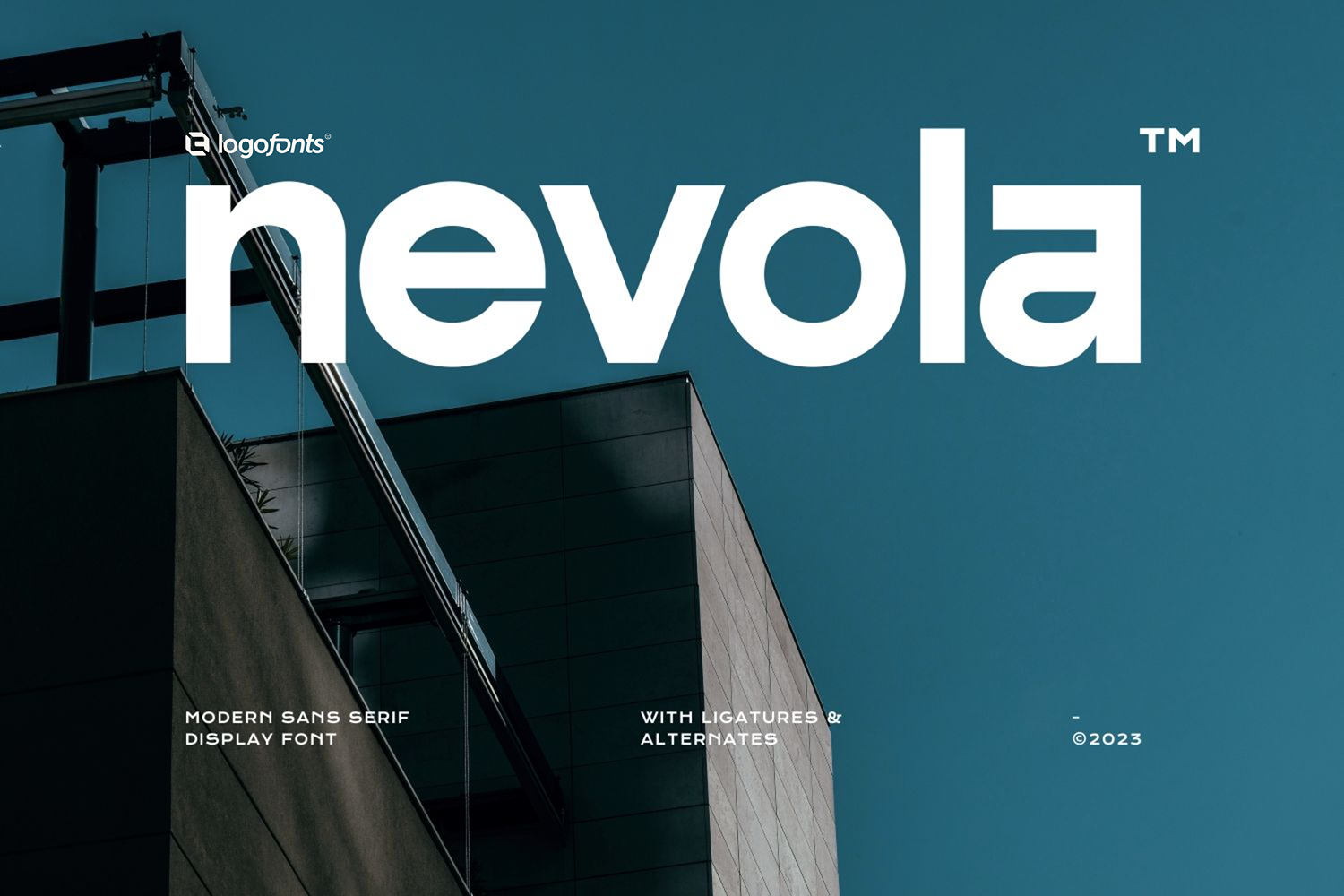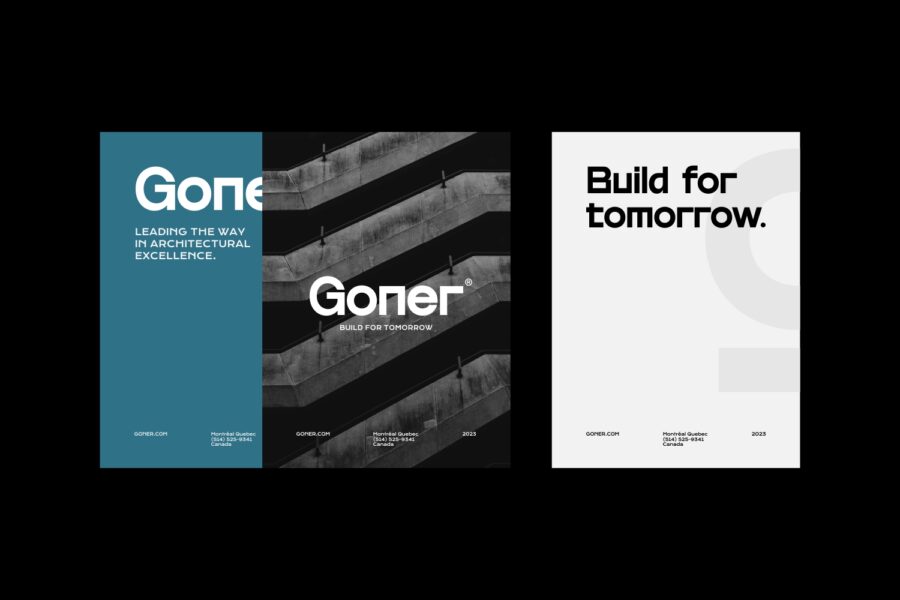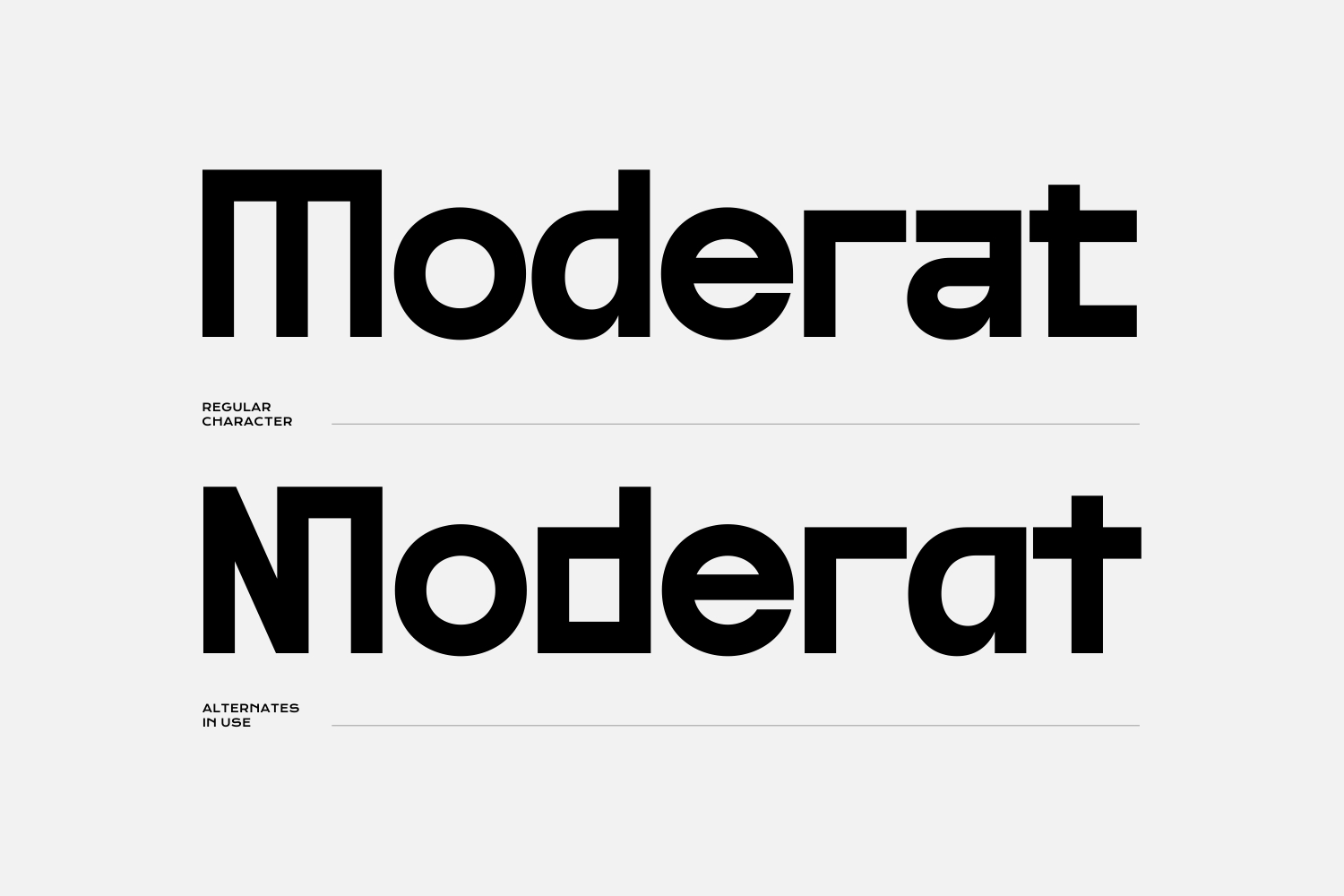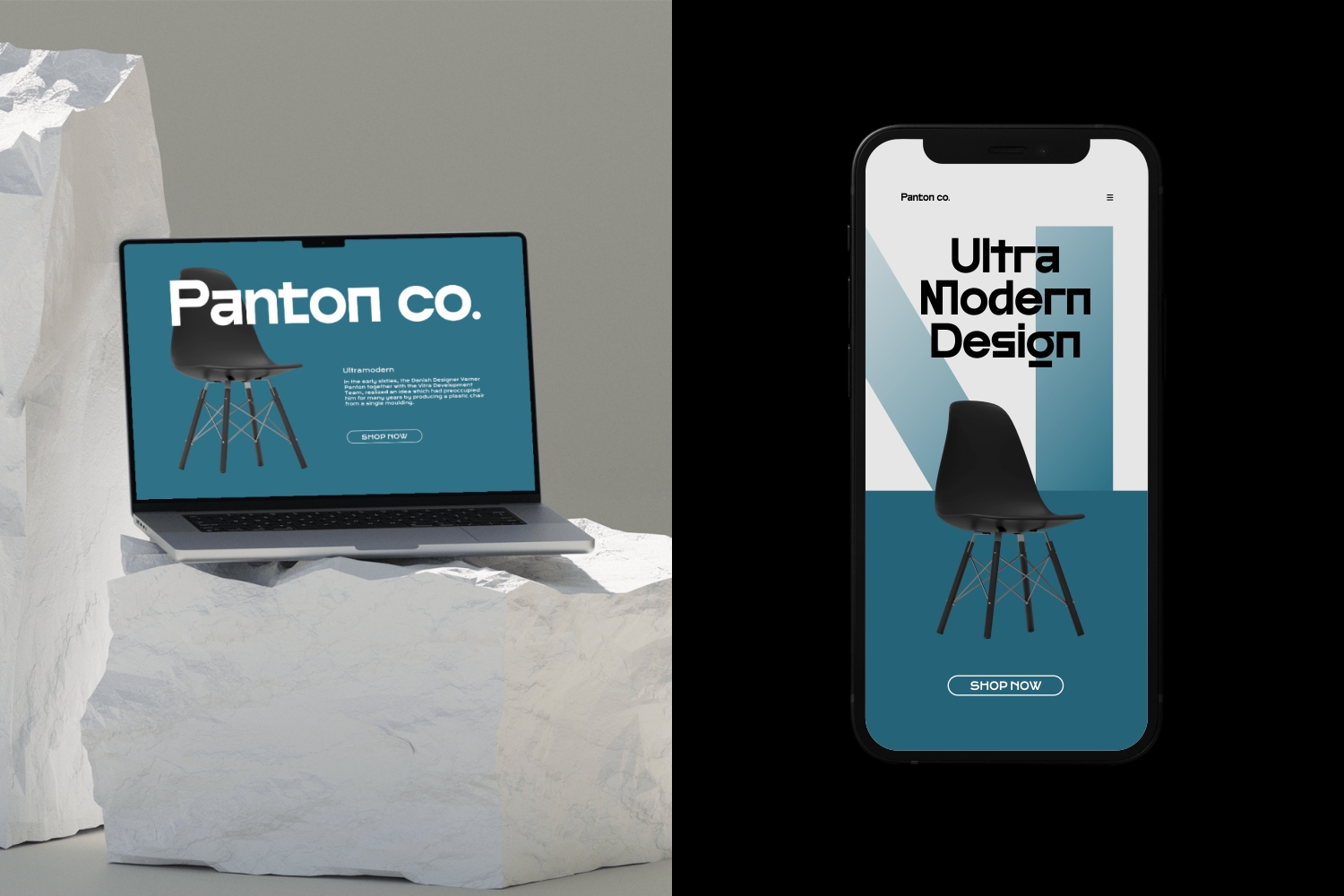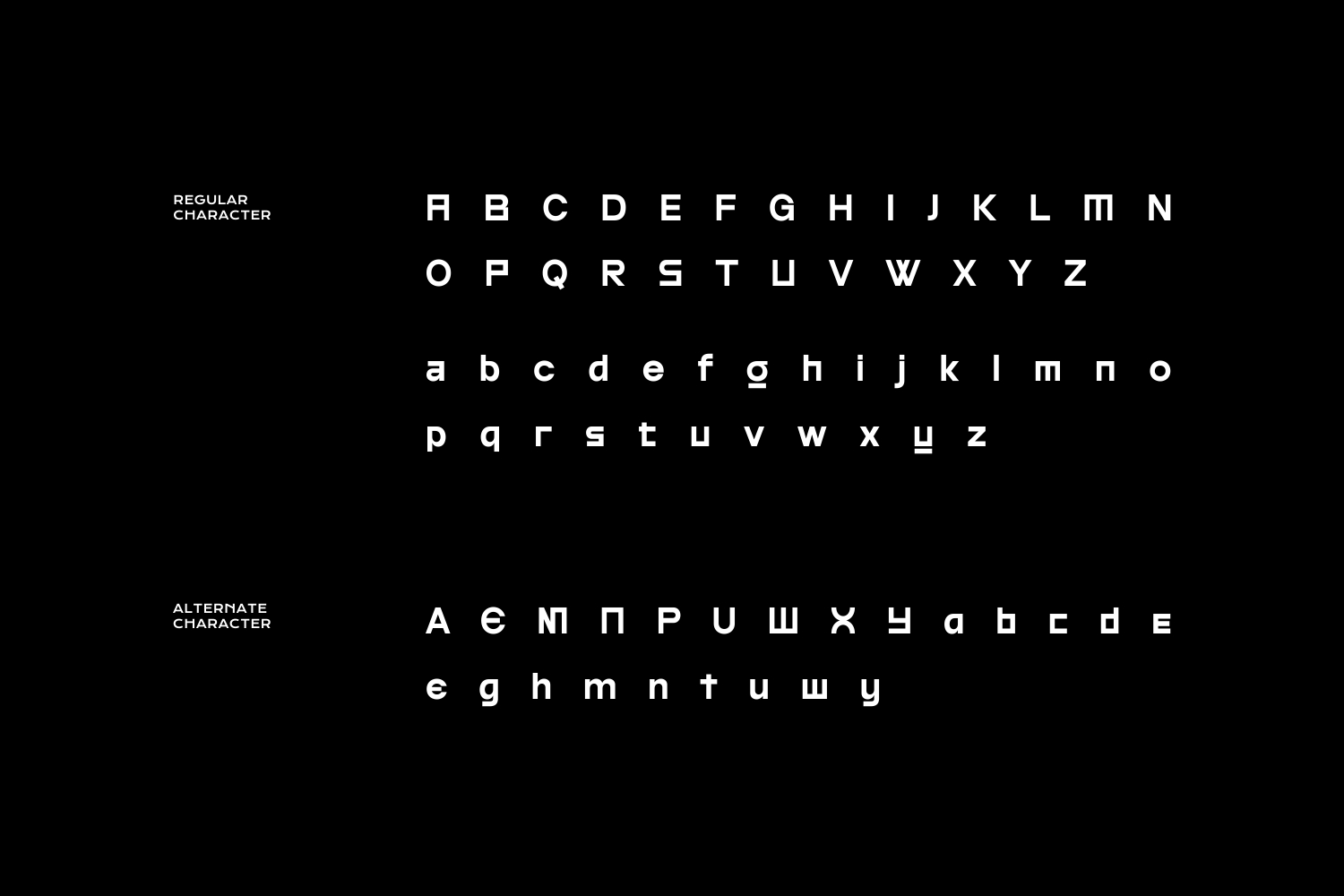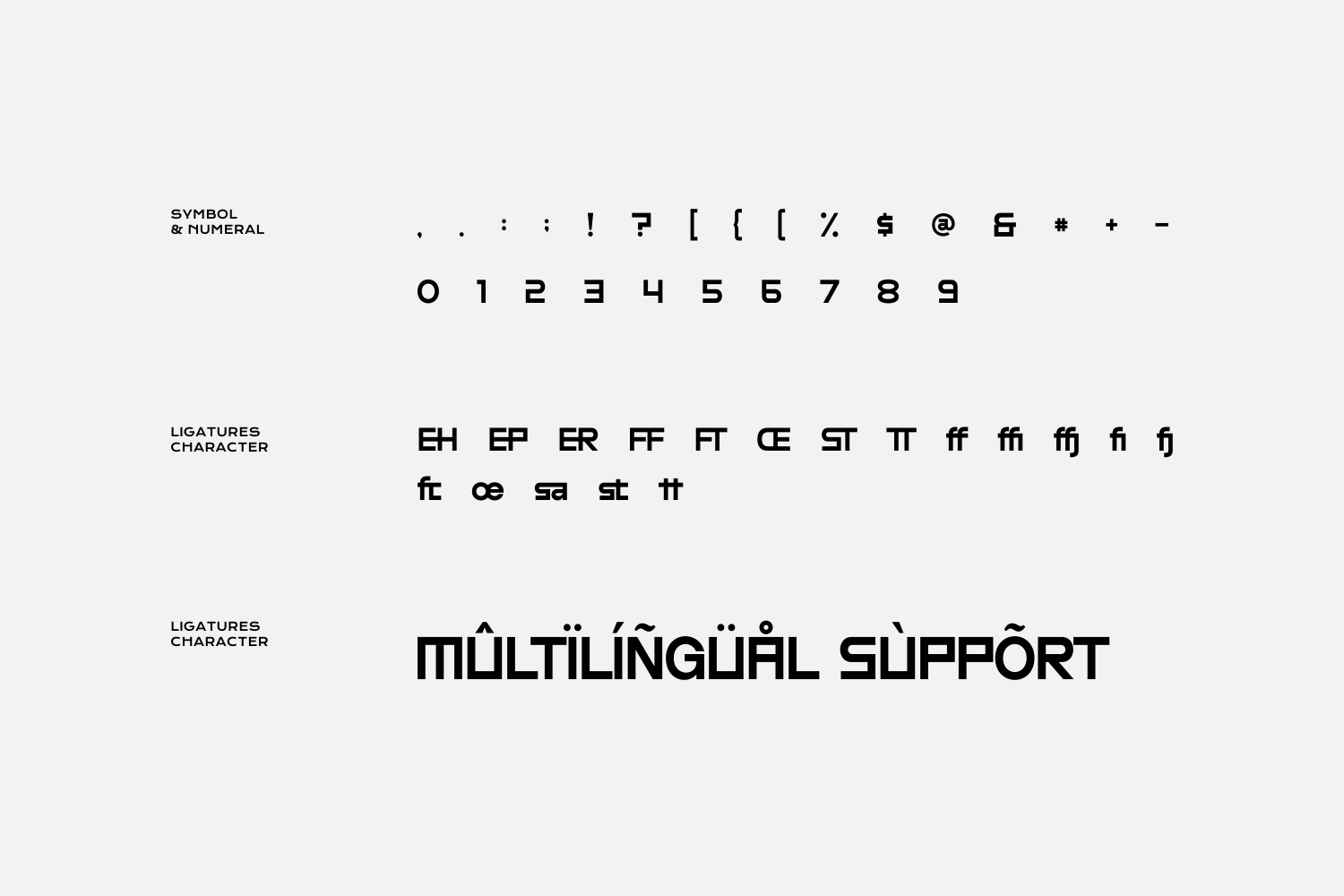
Nevola is a modern sans serif display font with a bold and structured aesthetic, crafted for strong visual presence. Its clean, geometric forms and tight spacing make it ideal for headlines, branding, digital platforms, and architectural visuals. The font balances simplicity and power, bringing a clear, assertive tone to any design it’s featured in.
Equipped with a set of ligatures and alternate characters, Nevola allows designers to add distinctive typographic variation. Whether you’re building a corporate identity, modern website interface, or contemporary editorial layout, Nevola delivers confident clarity and refined precision.